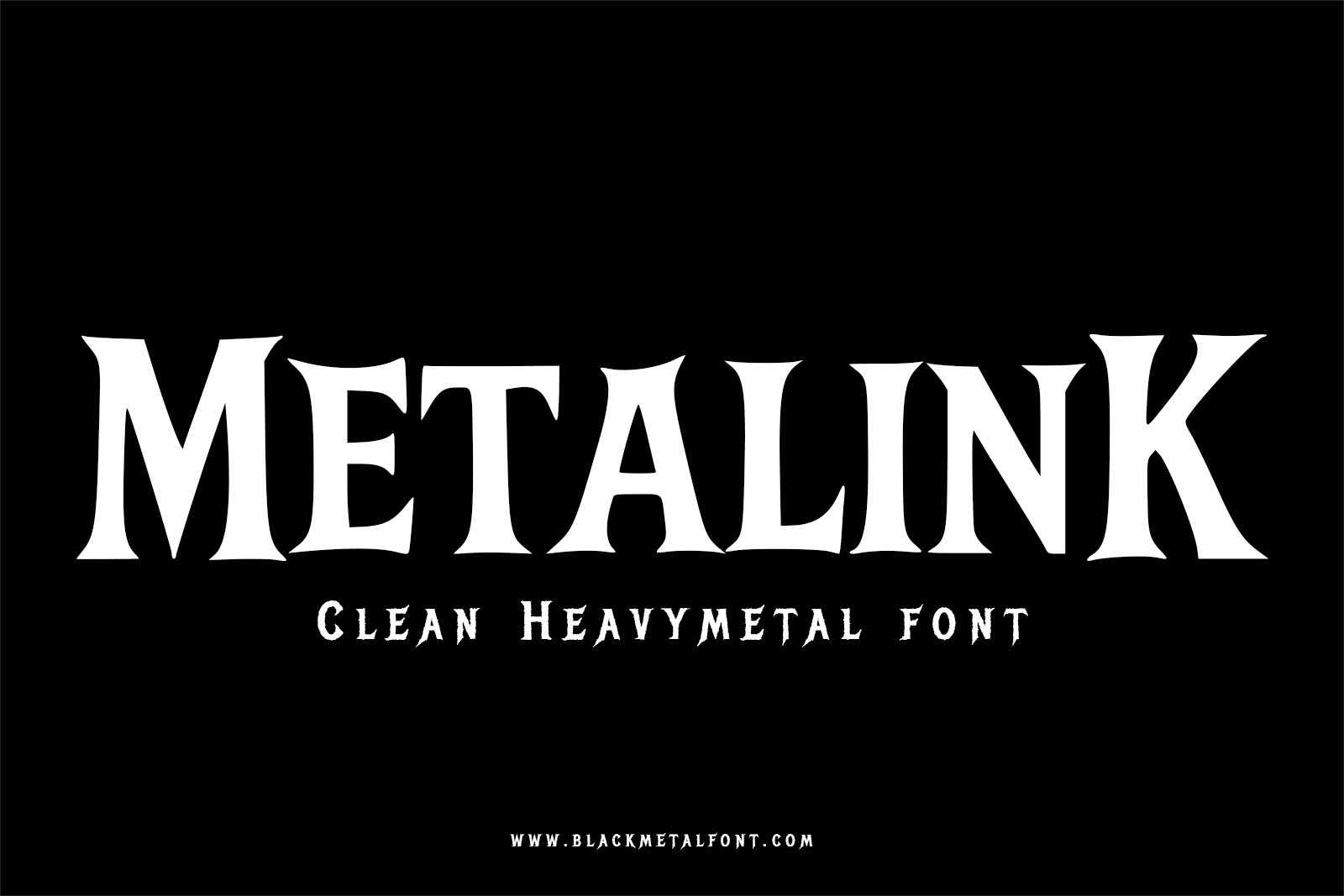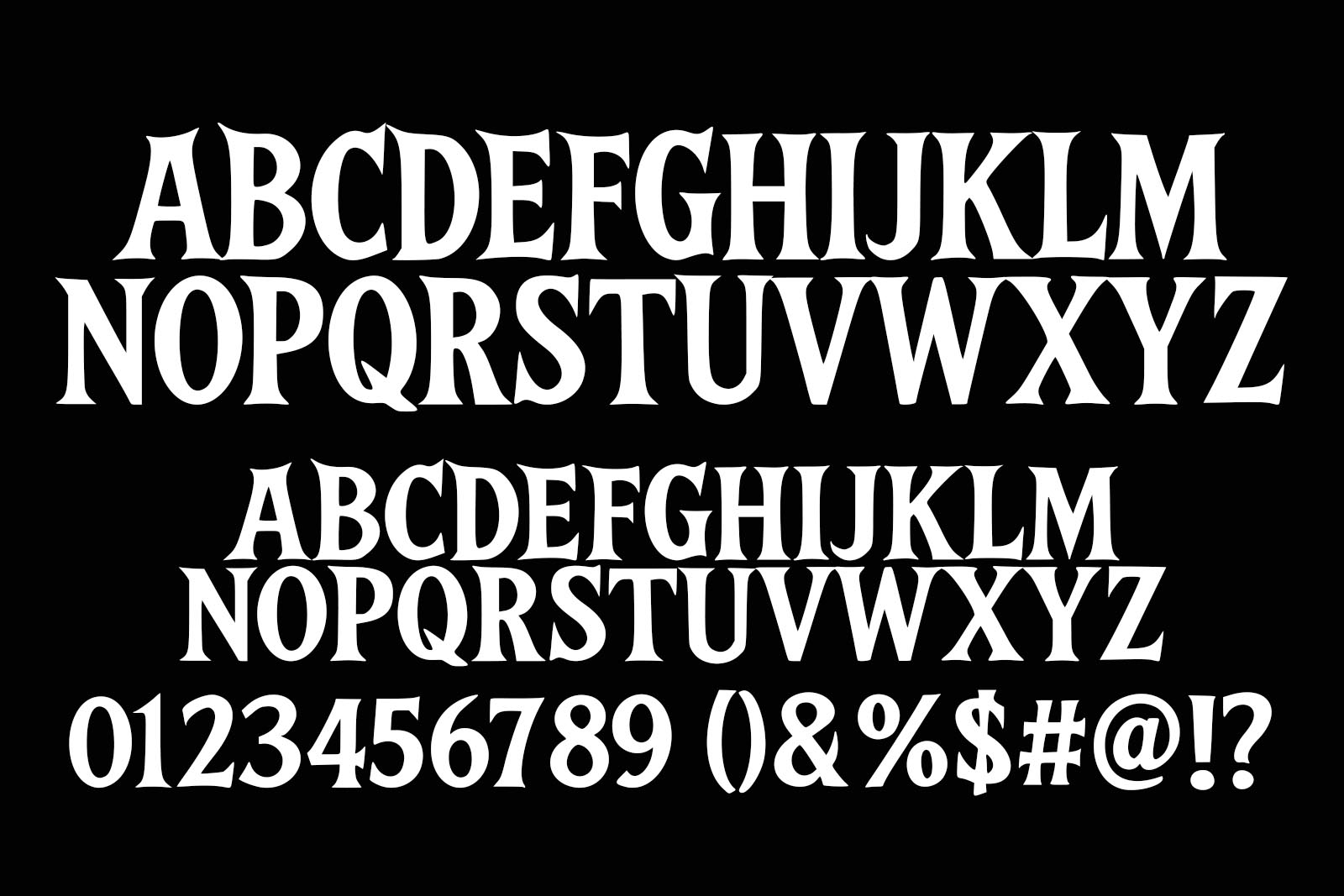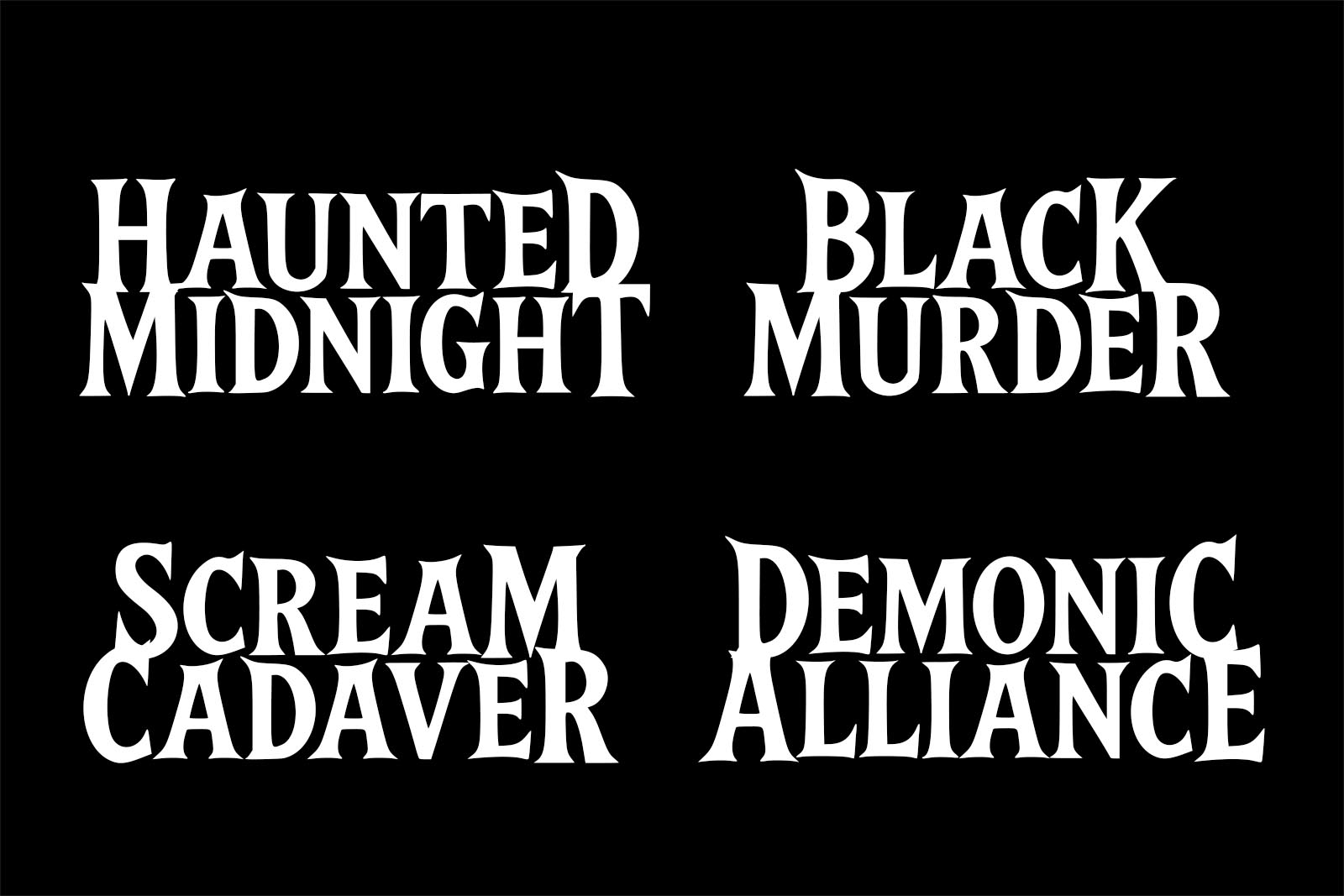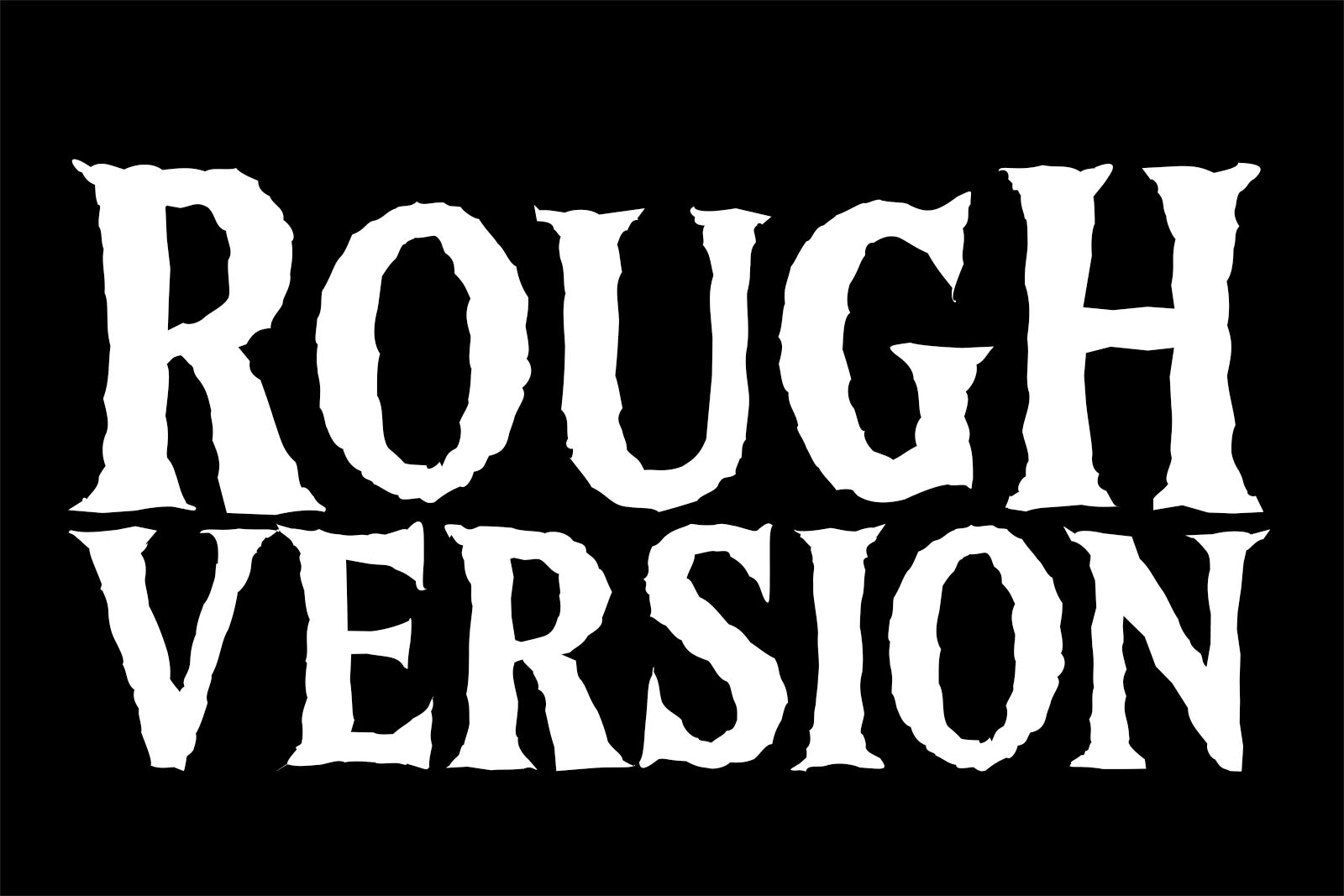
Metalink – Heavy Metal Font from BlackMetalFont.com
Unleash the raw power of typography with Metalink, a clean yet commanding Heavy Metal font crafted for those who crave bold expression and visual impact. Designed by the team at BlackMetalFont.com, Metalink combines sharp angles, aggressive curves, and modern structure to deliver a typeface that screams rebellion and power.
Perfect for heavy metal bands, rock merchandise, album covers, festival posters, logos, and branding that demands attention, Metalink brings a clean execution to the gritty, hard-edged aesthetic of the heavy metal genre. Each letterform stands tall with dynamic energy and bold contrast, evoking the spirit of metal music with a professional, readable finish.
Unlike typical grunge or distressed fonts, Metalink strikes a balance between intensity and clarity—making it highly versatile for both print and digital designs. Whether you're building a band identity, creating jaw-dropping merch, or working on extreme sports branding, Metalink gives your typography the edge it deserves.
Key Features:
Clean and legible heavy metal style lettering
Ideal for metal band logos, t-shirts, posters, and horror themes
Inspired by gothic, doom, thrash, and black metal influences